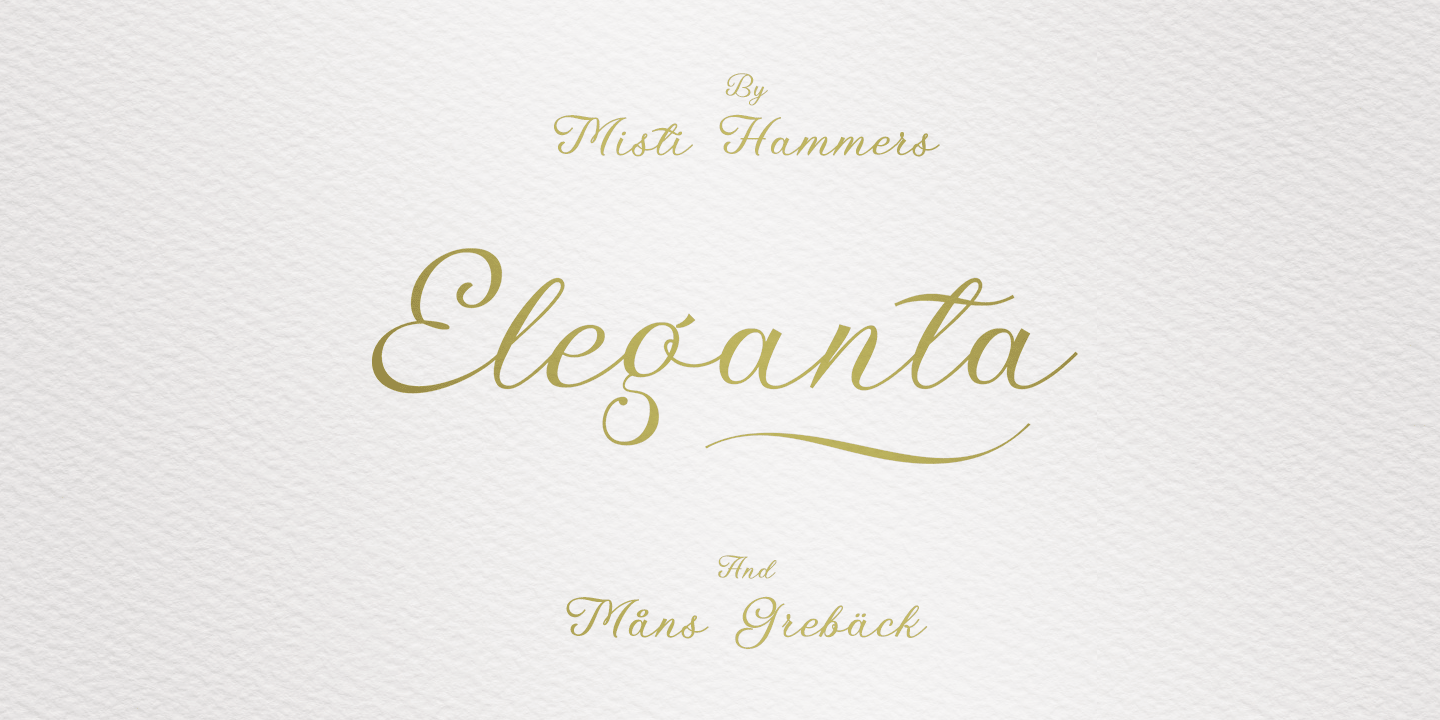
Looking to imbue your designs with a touch of sophisticated grace and flowing beauty? Eleganta Font Free Download offers a wonderful opportunity to explore a typeface that lives up to its name. Remember, though, while an Eleganta Font Free Download is usually available for personal and testing purposes, a commercial license is required for any professional or revenue-generating projects. This is crucial for legal compliance and supports the talented font designers.
The Eleganta Font is exceptionally well-suited for projects that demand a refined, artistic, or upscale aesthetic. Its often fluid lines, delicate curves, or calligraphic nuances make it an excellent choice for luxury branding, high-end invitations, and elegant event stationery. It's ideal for wedding announcements, fine dining menus, and beauty product packaging, where a sense of artistry and bespoke quality is desired. Furthermore, consider Eleganta Font for fashion editorials, art gallery promotions, and social media graphics that aim to convey sophistication and a touch of glamour. Its distinctive character also brings life to personal blogs and artistic portfolios.
What makes the Eleganta Font so exciting is its inherent ability to transform simple text into a work of art. It often features a graceful rhythm and intricate details that set it apart from more conventional typefaces, giving your message a memorable and distinguished presence. This characteristic allows it to communicate a sense of refinement, exclusivity, and heartfelt artistry, making your message resonate with genuine emotion and a discerning audience. It’s a font that doesn't just display text; it embodies a sophisticated charm, adding a layer of visual poetry and timeless appeal to any creative endeavor. Its distinctive aesthetic ensures your work will stand out with elegance and a truly memorable flair.
The Eleganta Font family typically emphasizes its unique stylistic elements. You'll often find a well-crafted Regular weight, which might be complemented by specific bold or light variations to offer subtle typographic contrasts. Due to its expressive nature, the family might also include unique ligatures, stylistic alternates, or decorative swashes that allow for highly customized and artistic text compositions, providing additional creative options for crafting truly unique headlines and logotypes.